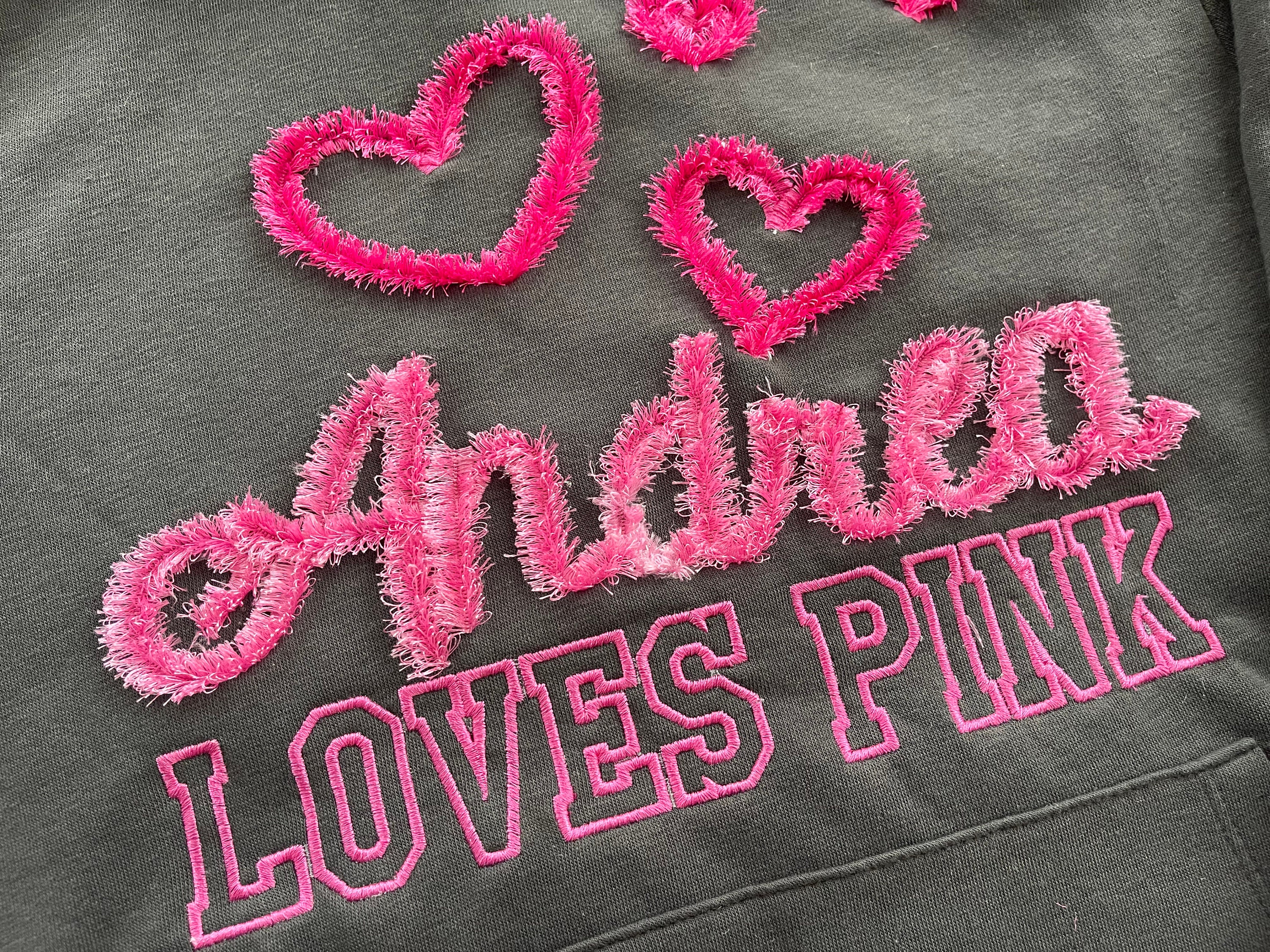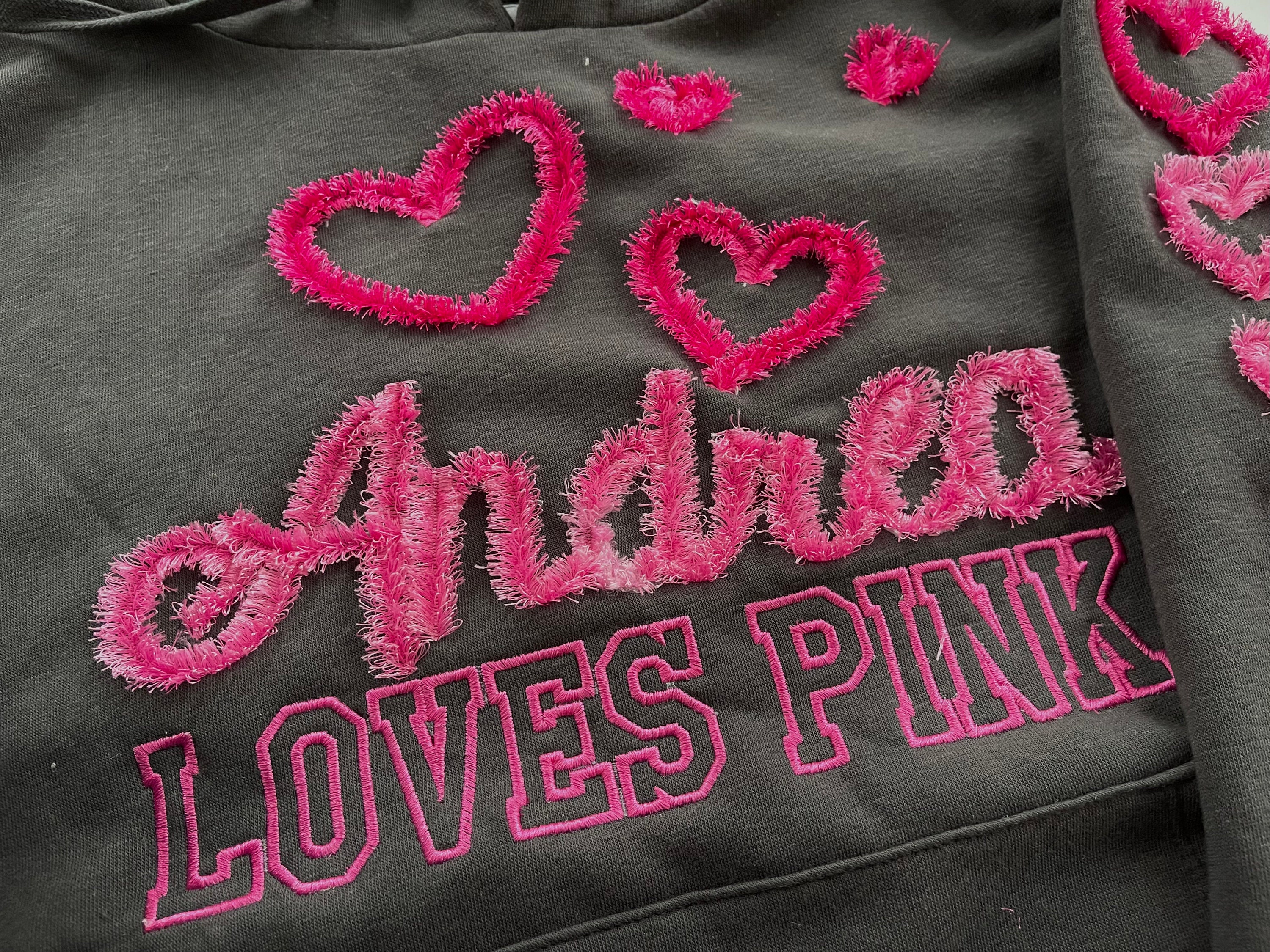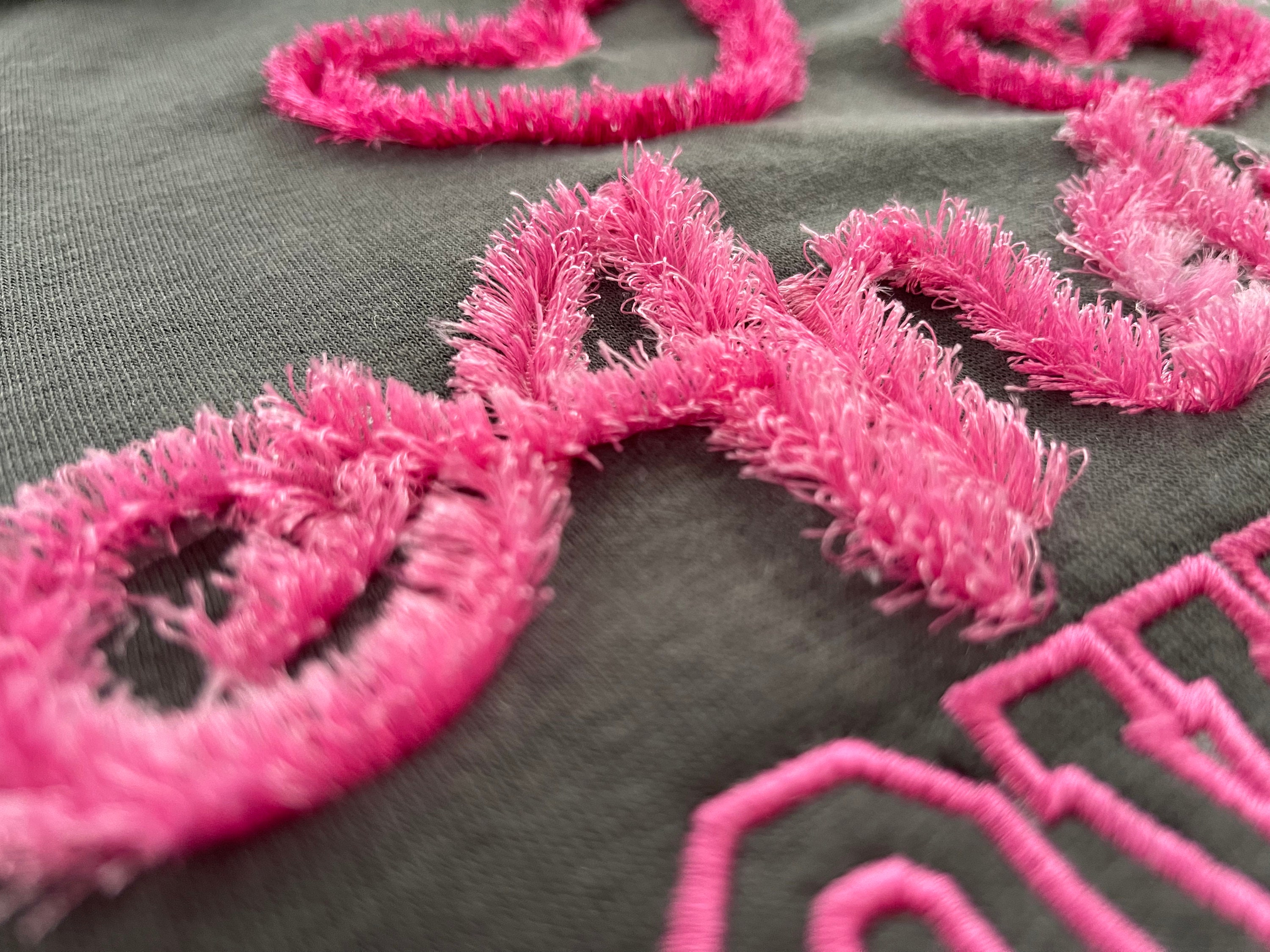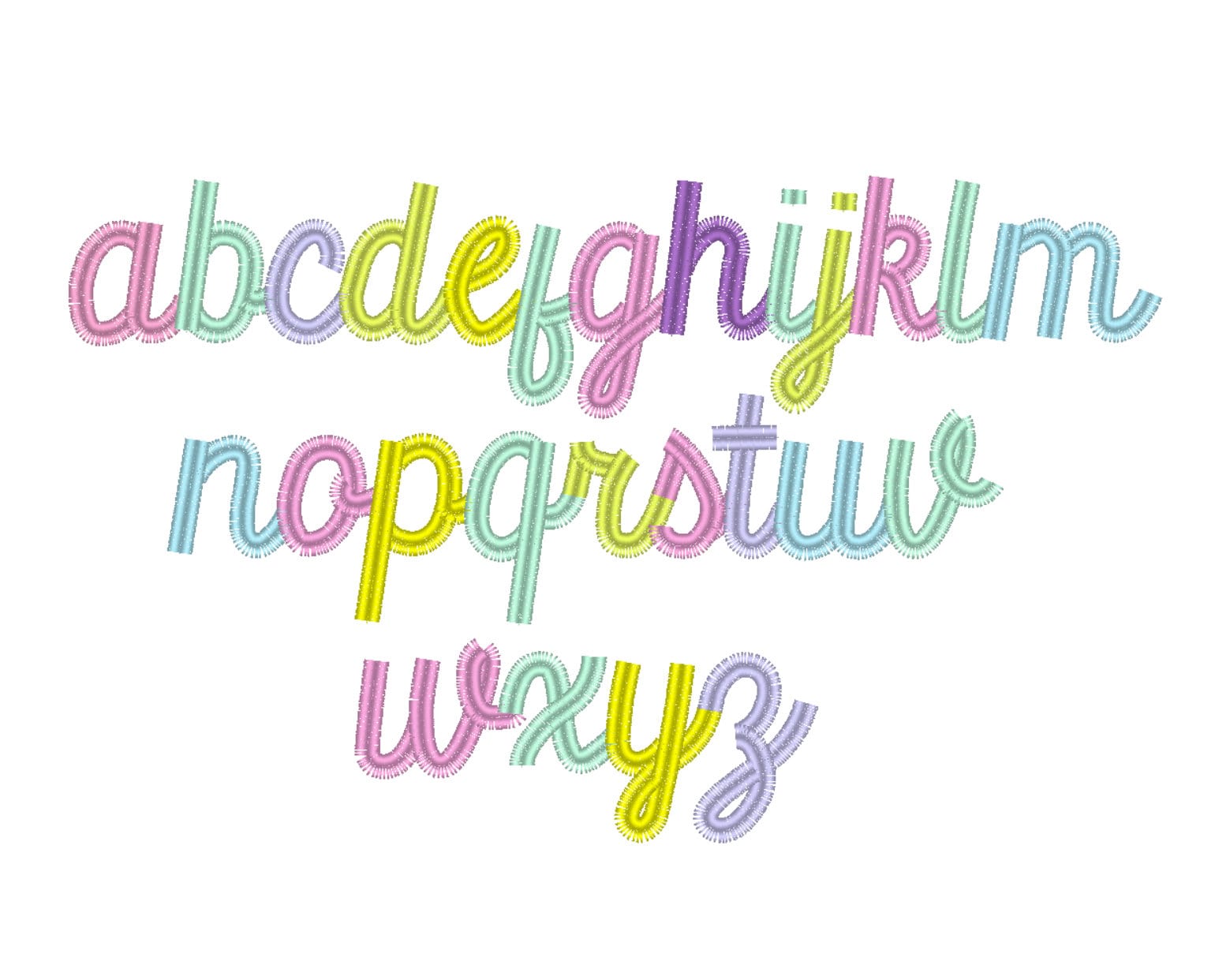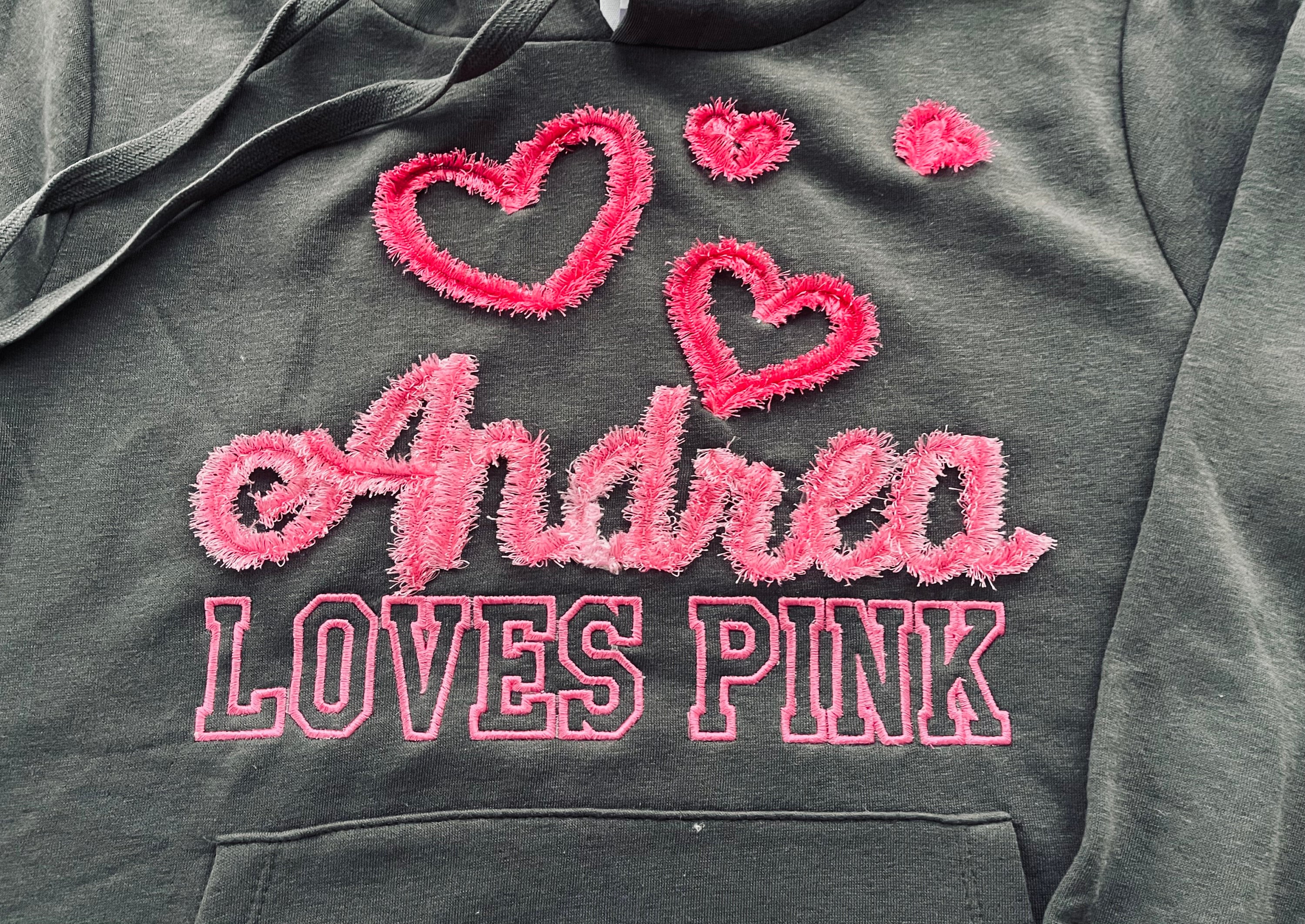
Connected Fringed FONT alphabet letters machine embroidery designs in assorted sizes chenille girly pretty fluffy letters, BX included
100 % safe to tear and wash.
It is easy. Stitch the design as usual. Large satin stitches will be loose. Once you complete stitching the design, turn over your hoop to see a reverse side, and cut the bobbin thread, along the large satin stitches. Turn the hoop back over and fluff up the "fringe" around. Please view the last image on how-to.
Entire alphabet A-Z uppercase and lowercase.